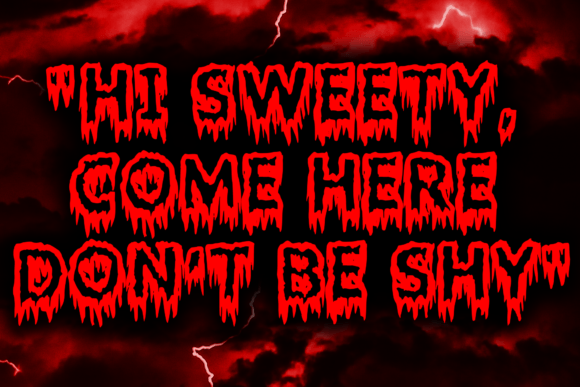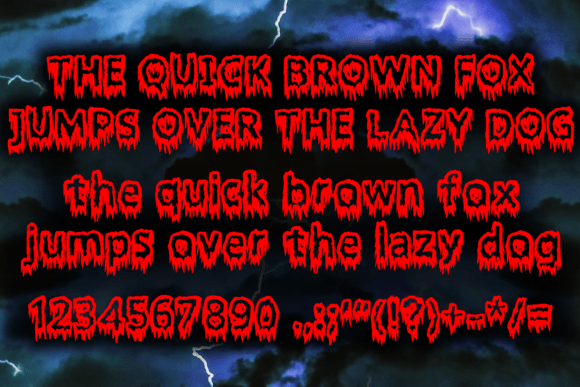
The Bloody Nightmare Font: A Horror Designer’s Dream Come True
I’ll never forget the time I was working on a Halloween-themed project for a client, and I just couldn’t find the right font to capture the spooky atmosphere. I had tried countless fonts, but none of them seemed to scream “horror” enough. That was until I stumbled upon the Bloody Nightmare font. It’s a fantastic ink drips font inspired by vintage horror movies, comics, and Metal music. In this article, I’ll share my experience with this font, its features, and how to make the most of it in your designs.
- ✨ The Bloody Nightmare font is perfect for horror and Halloween-themed designs, with its drippy, bloody texture that’s sure to send chills down your audience’s spines.
- ✅ It’s incredibly versatile and can be used for a wide range of projects, from merchandise like t-shirts and clothing to scary book designs, Halloween party needs, greeting cards, stickers, posters, and banners.
- 💥 The font’s unique style is sure to make your designs stand out from the crowd and leave a lasting impression.
While the Bloody Nightmare font is amazing, there are a few things to keep in mind 🤔:
- ⚠️ The font’s drippy texture can be a bit tricky to work with, especially when it comes to smaller font sizes. Be sure to test it out at different sizes to ensure it works for your project.
- ⚠️ Some of the characters may require a bit of manual kerning to get them to look just right.
The Bloody Nightmare font was inspired by the dark, gritty world of vintage horror movies, comics, and Metal music. The designer behind the font wanted to create a typeface that captured the raw energy and emotion of these genres, and we think they succeeded. Whether you’re a fan of classic horror movies or just love the aesthetic of Metal music, this font is sure to resonate with you.
A: The Bloody Nightmare font is perfect for horror and Halloween-themed designs, including merchandise, scary book designs, Halloween party needs, greeting cards, stickers, posters, and banners.
A: The Bloody Nightmare font is a bit unconventional, with a drippy texture that can make it harder to read at smaller font sizes. However, it’s still legible and can be used for body text if needed.
A: The Bloody Nightmare font comes in a single style, but it’s versatile enough to be used in a variety of contexts. You can experiment with different font sizes, colors, and effects to achieve the desired look.